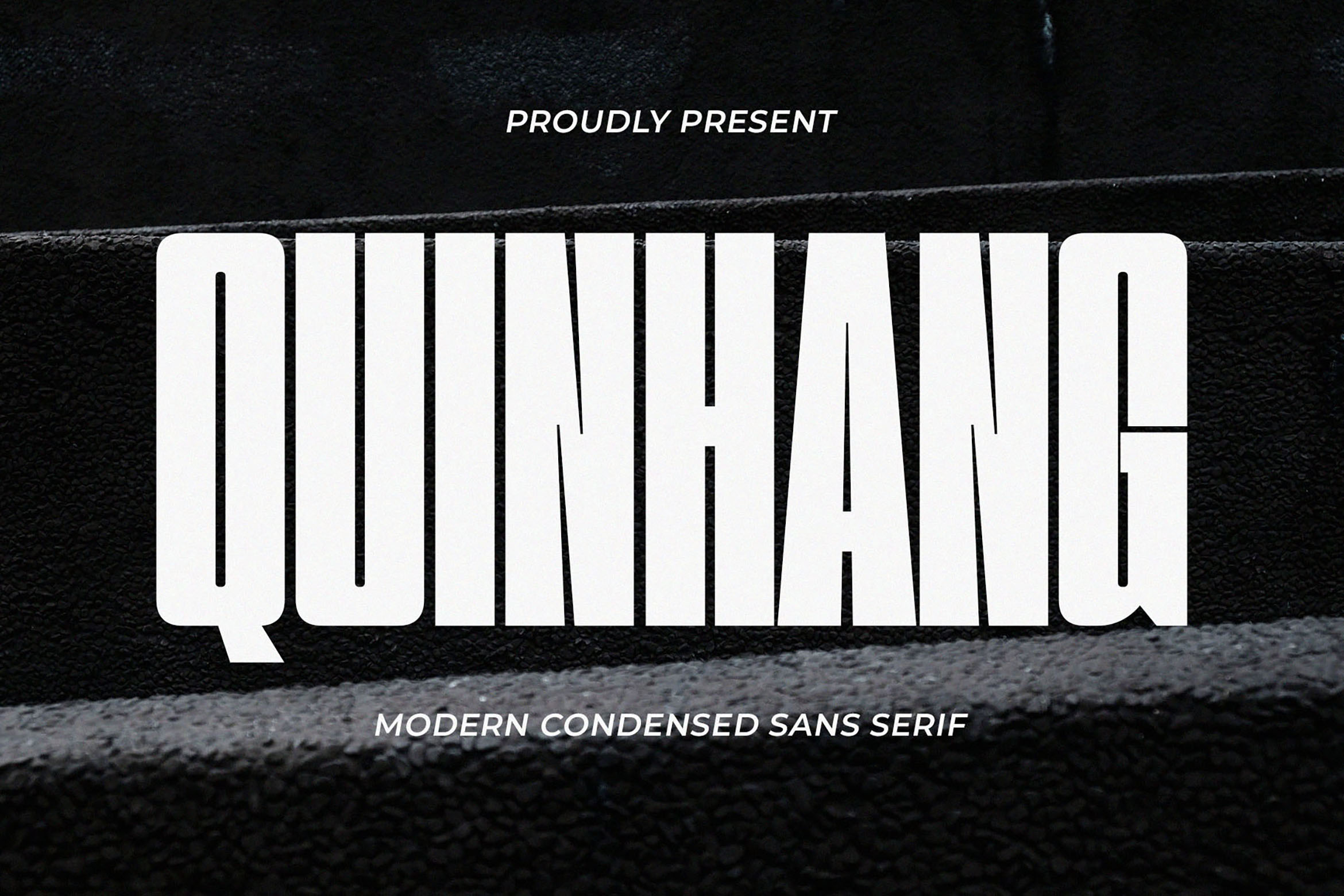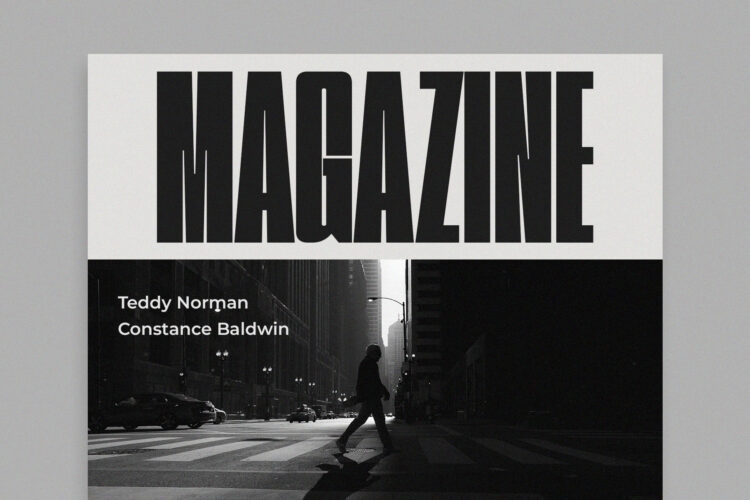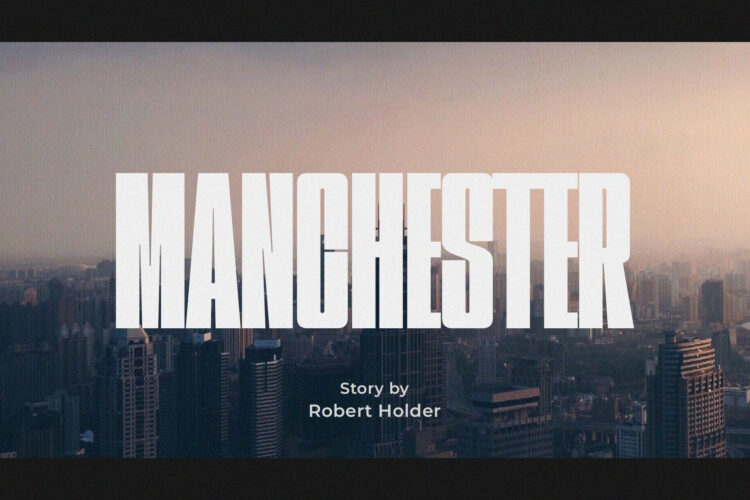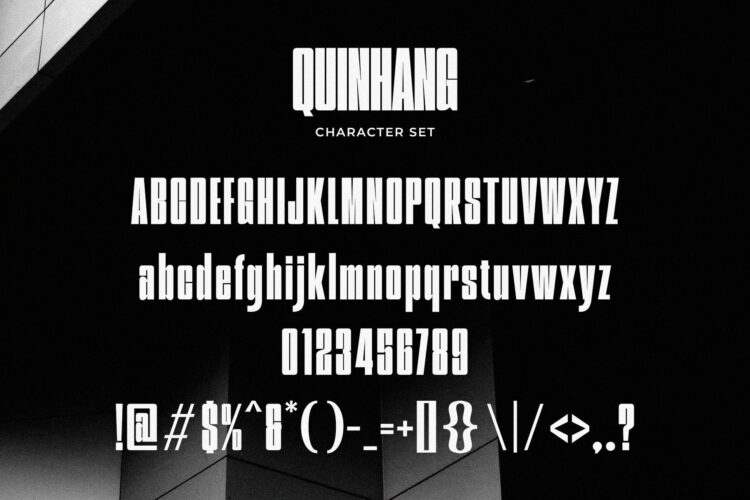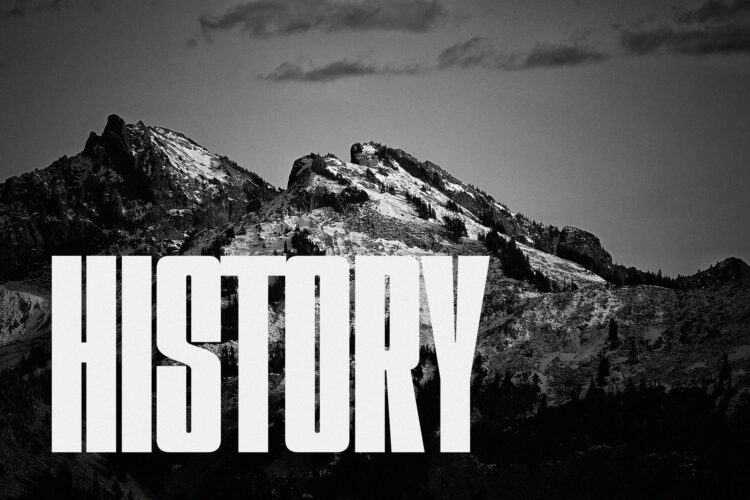
Introducing our new Quinhang, modern sans serif font with elegant style this is perfect for branding, logos, invitation, magazines, product packaging and more.
Quinhang – Modern Condensed Sans Serif